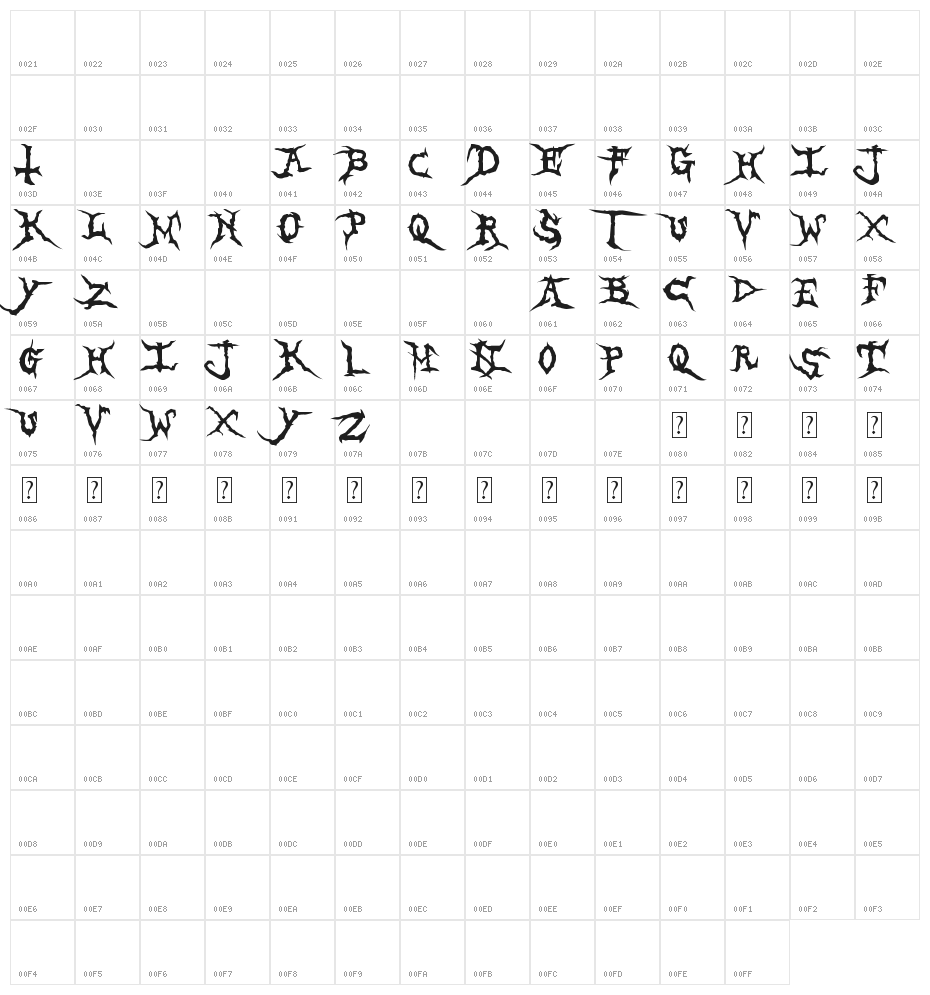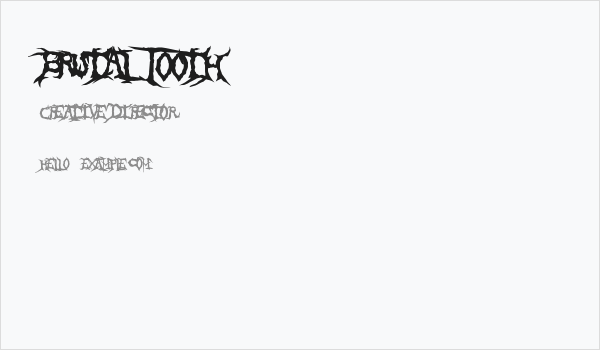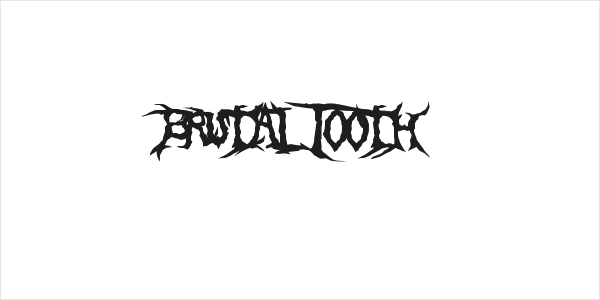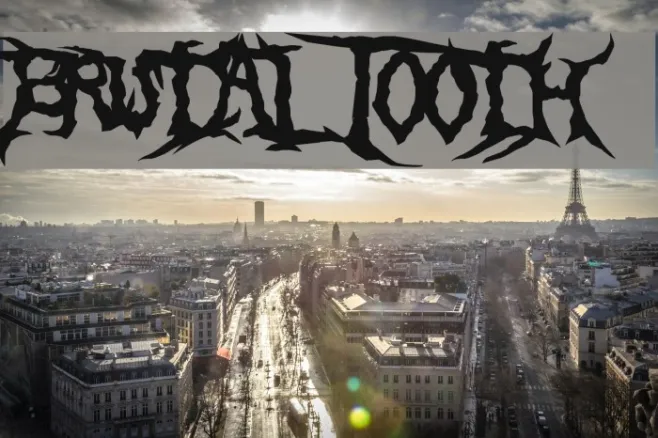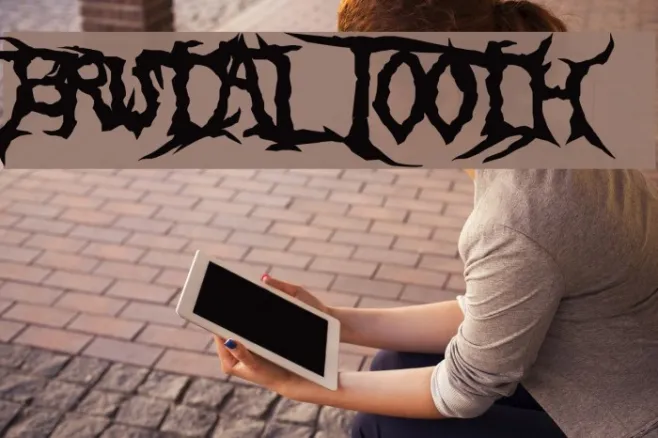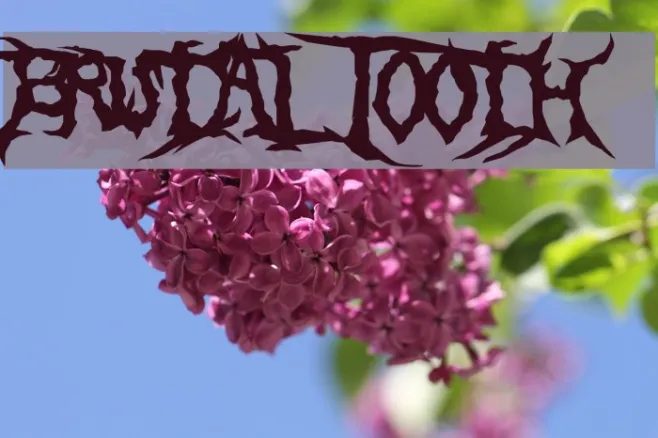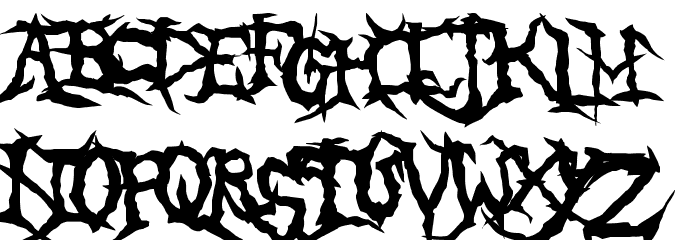
Brutal Tooth Font
Brutal Tooth Description
This font features a highly decorative and aggressive style, characterized by sharp, thorn-like edges and a jagged appearance. The letters are bold and densely packed, creating a sense of intensity and chaos. The uppercase and lowercase letters maintain a consistent thorny theme, with each character appearing as if it is constructed from intertwined branches or barbed wire. This design choice gives the font a unique, edgy aesthetic that is both eye-catching and intimidating.
| Width | Condensed |
| Use Case | Logos, Posters, Album covers |
| Proposed Projects | Ideal for use in horror-themed designs, band logos, or any project requiring a bold, intimidating aesthetic. |